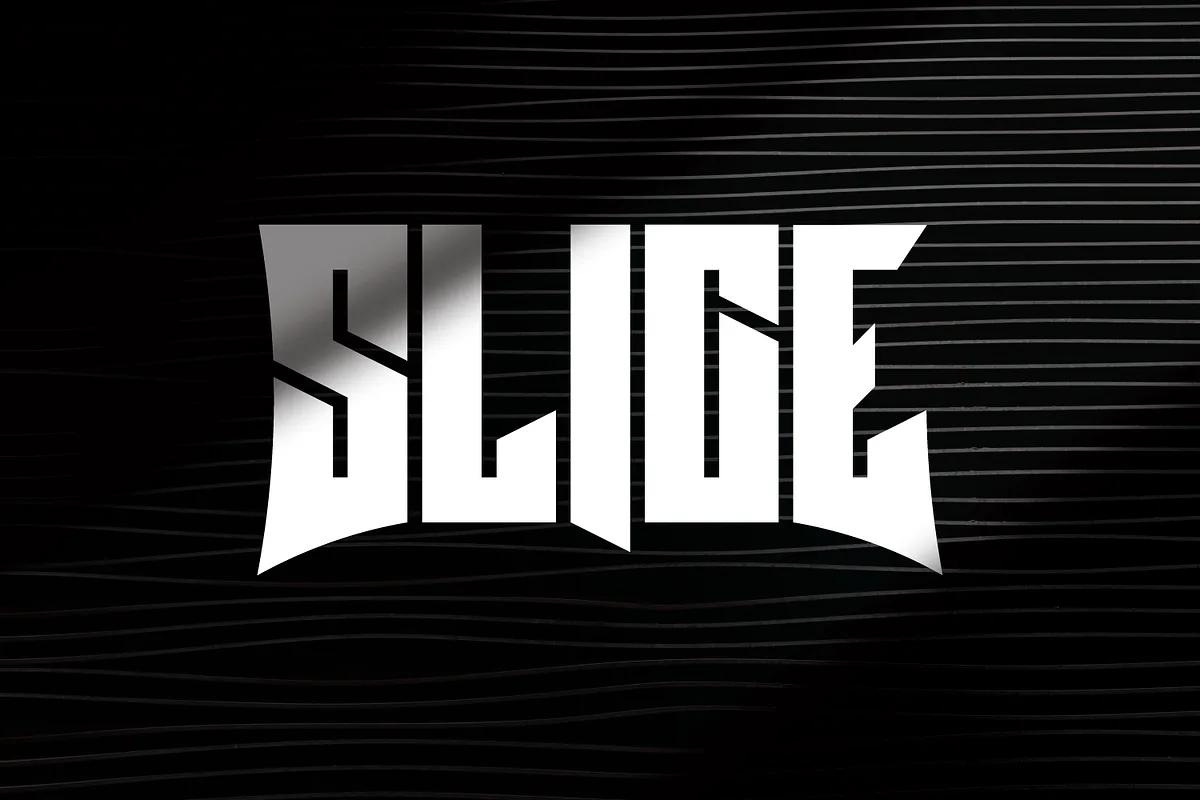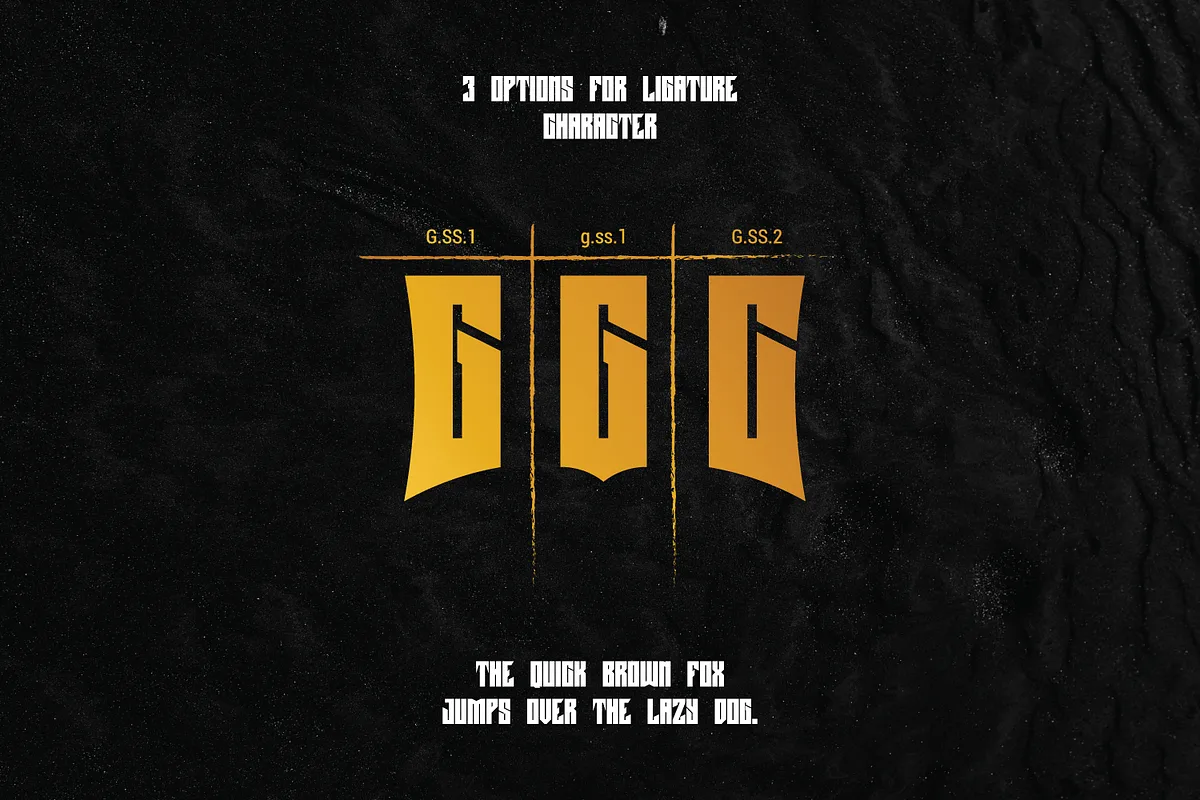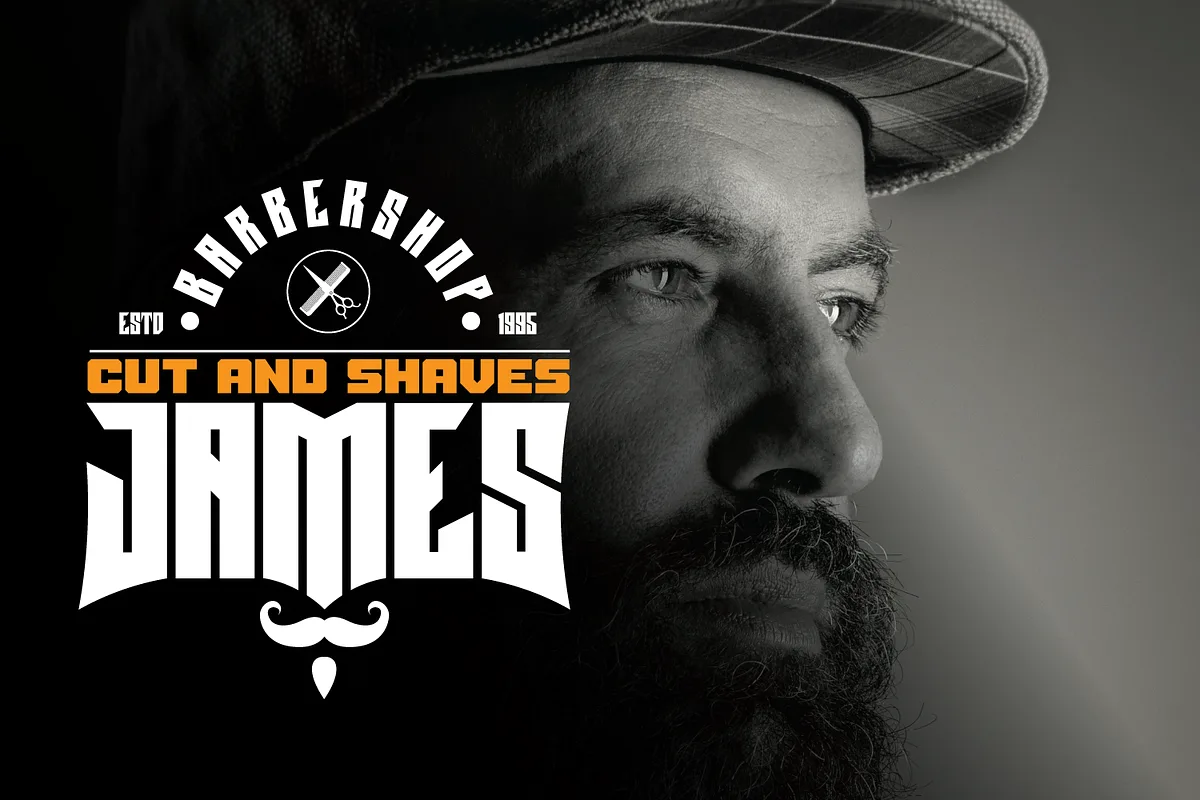
Black Mustang is a condensed font with a modern look, go for the alternate titling or manually choose from the Glyph Palette from more alternative characters to give it a borderless design.
- Upper and Lowercase characters (All Caps)
- Stylistic alternates (Uppercase 52 charcters, Lowwercase 26 characters)
- Numbers and Punctuation
- Multilingual Support (Latin Western Europe)